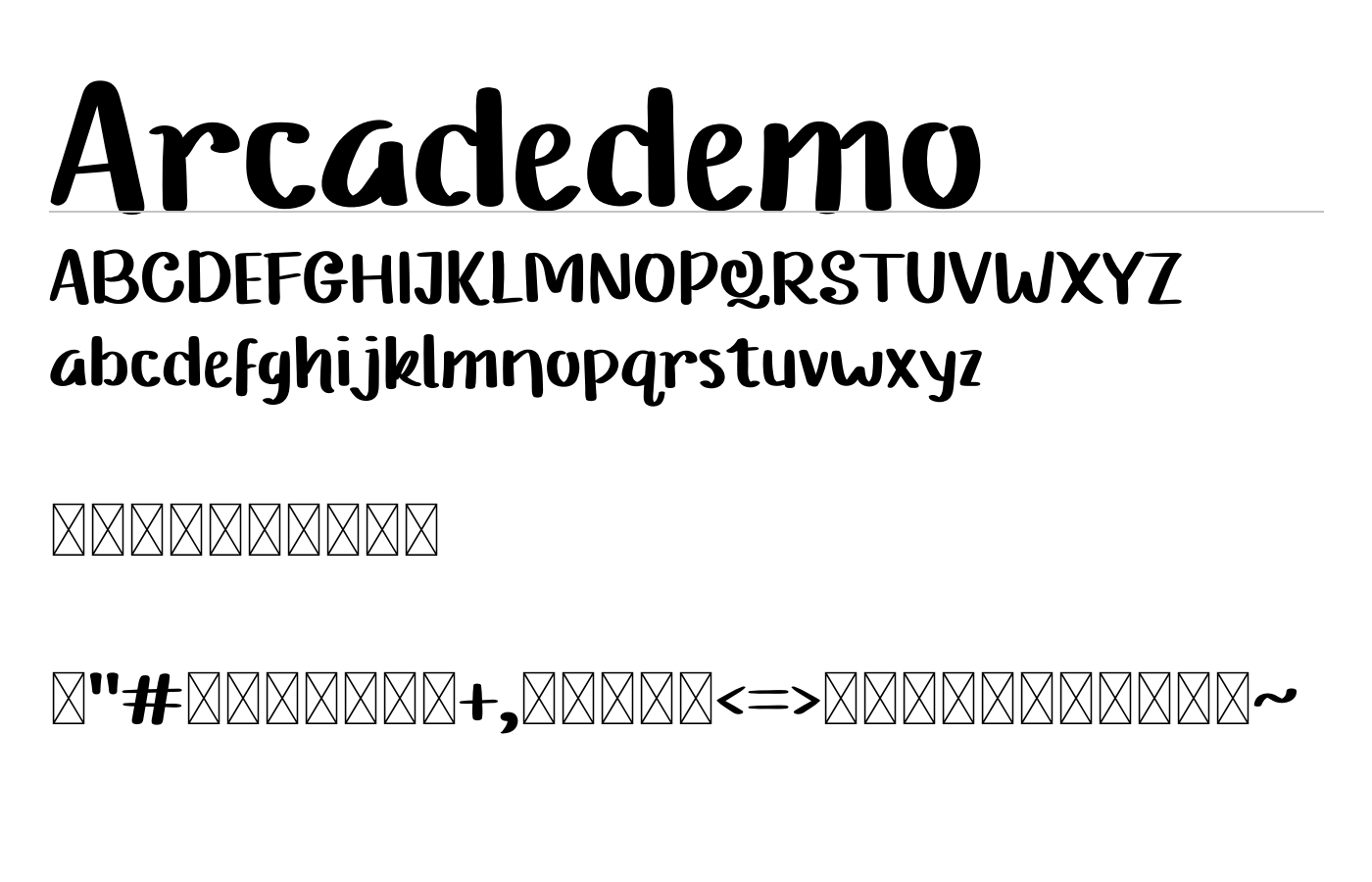
Arcadedemo is a playful, hand-drawn sans serif font with a friendly and casual vibe. Its rounded, irregular strokes and lively letterforms make it ideal for projects that want to convey warmth and creativity, such as children’s books, informal branding, or fun headlines. This font’s approachable style works best in display use where a personal touch is desired.
Arcadedemo Font
About Arcadedemo Font